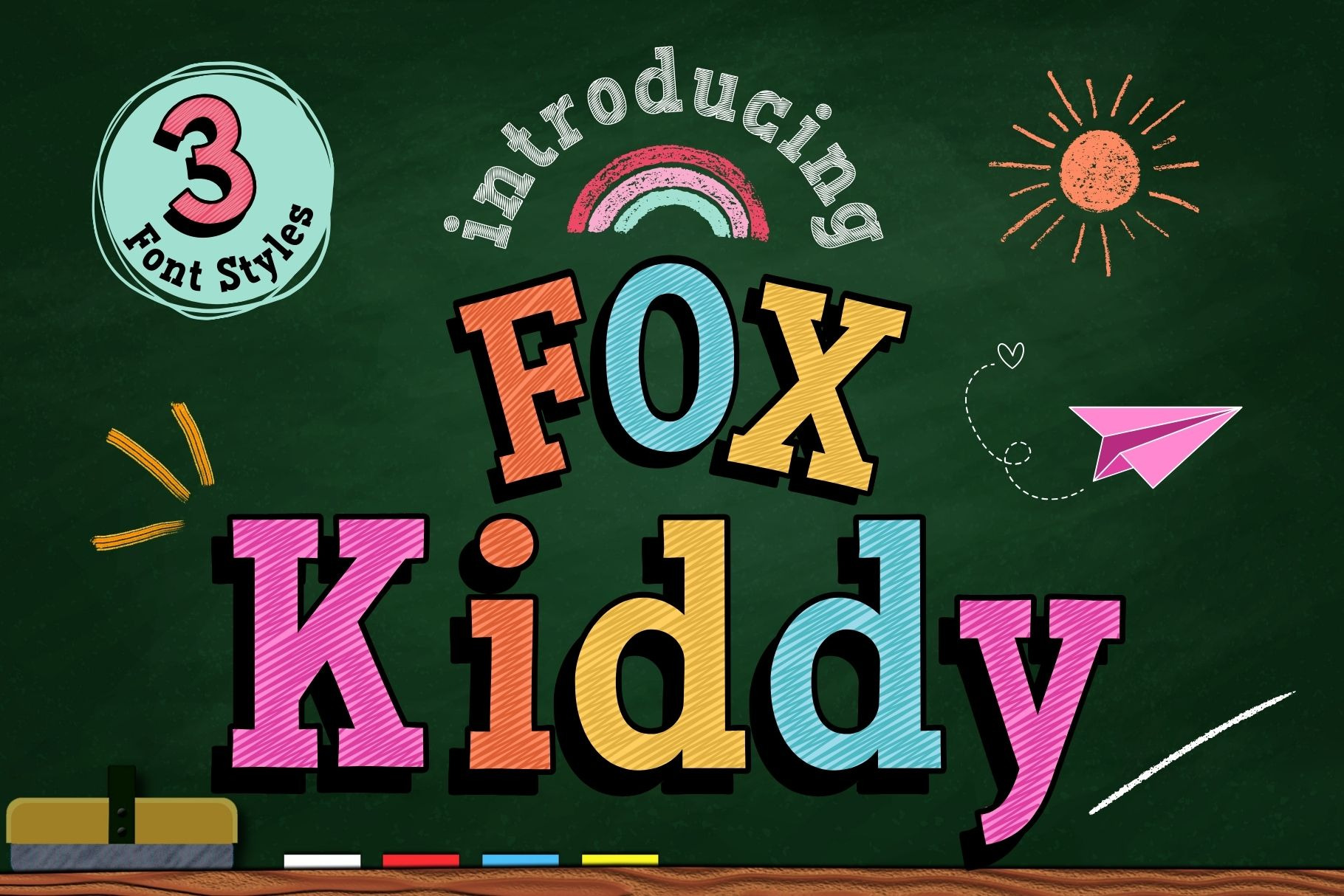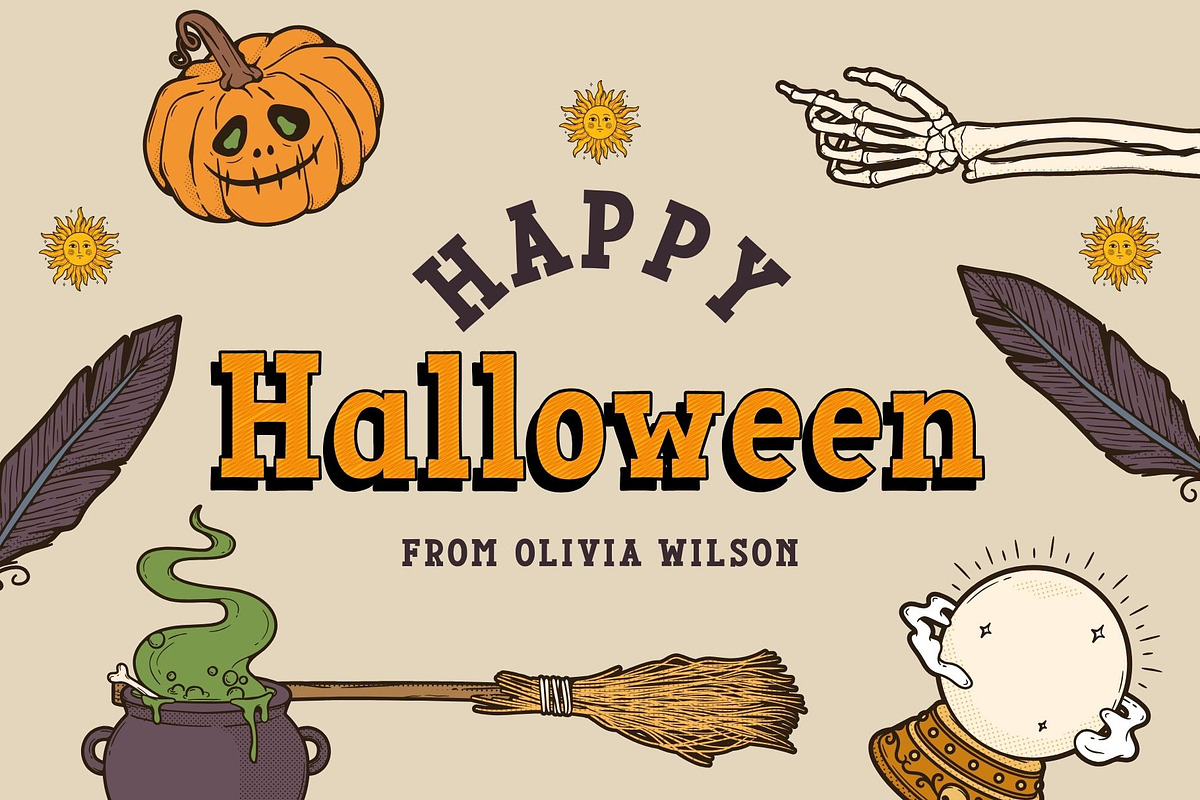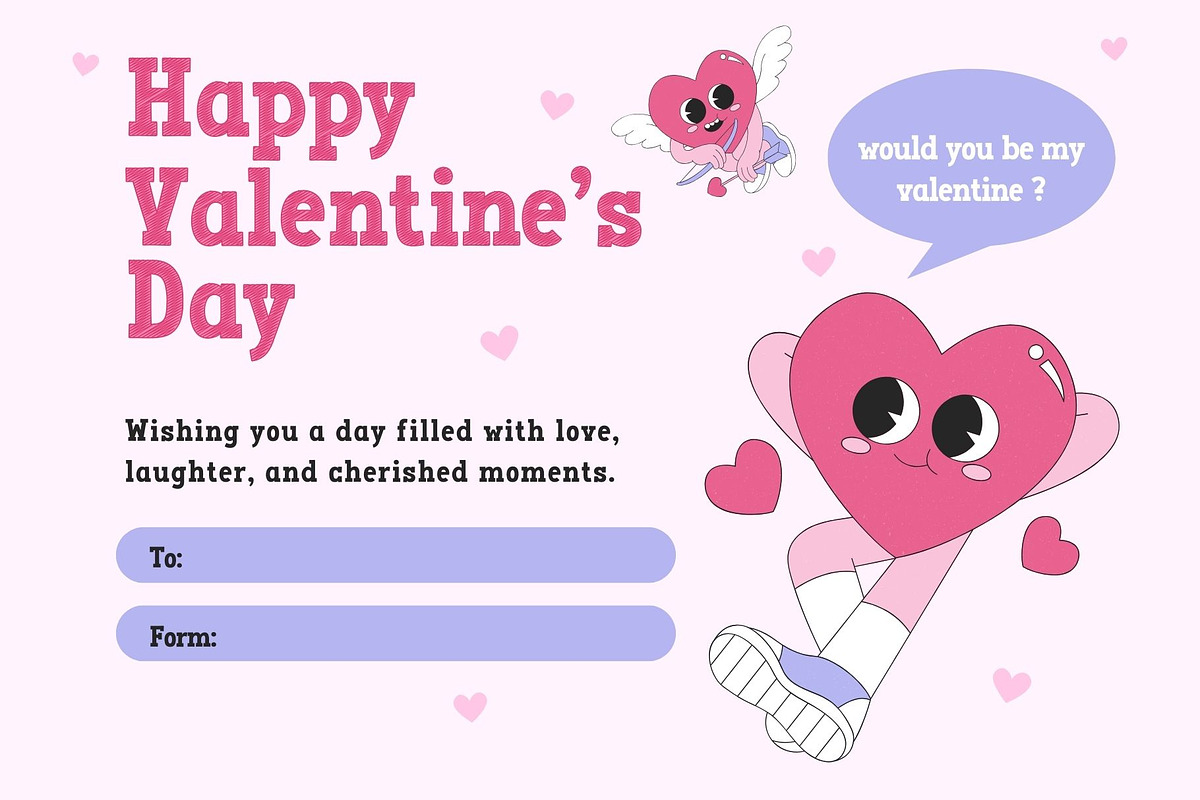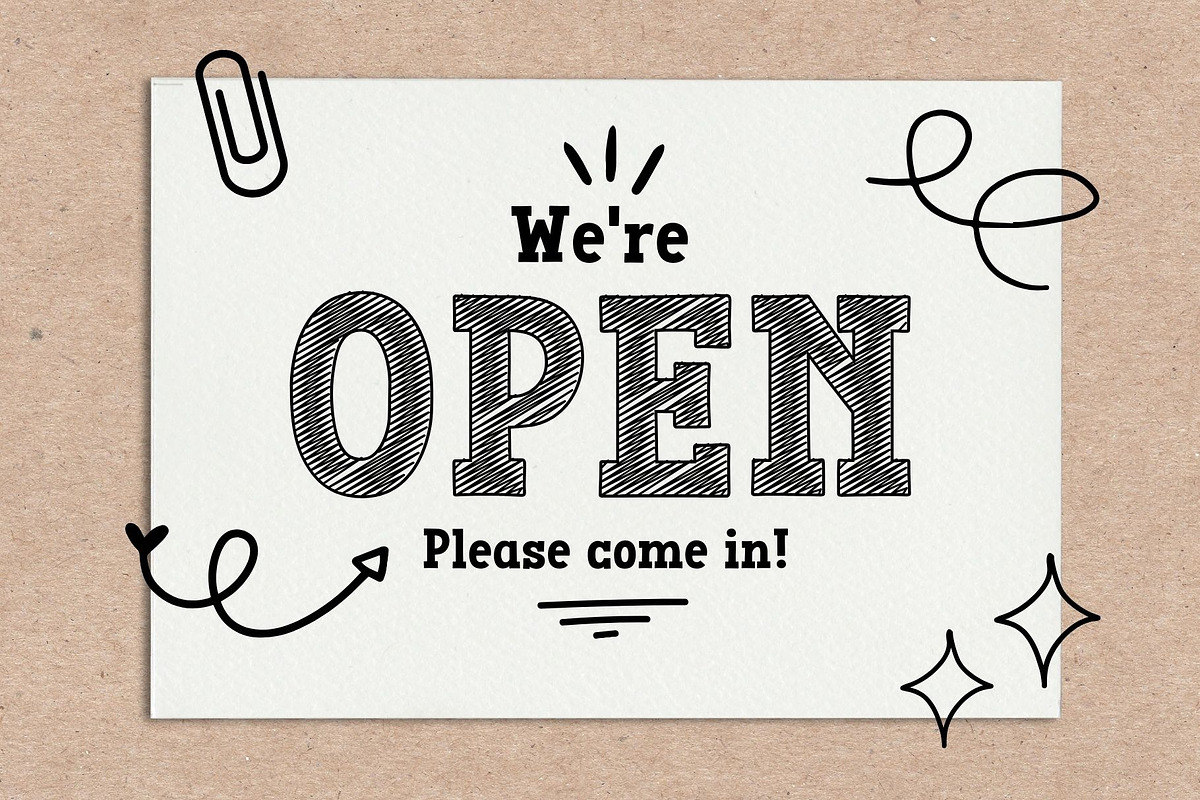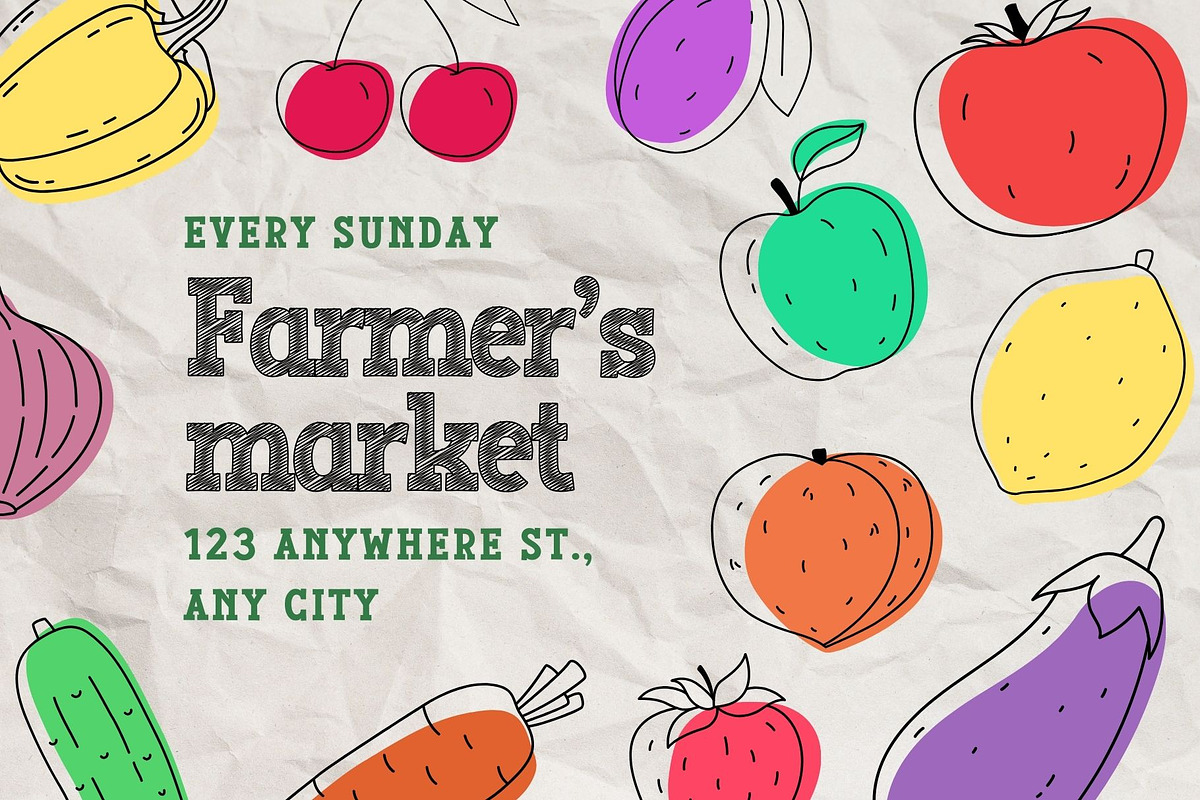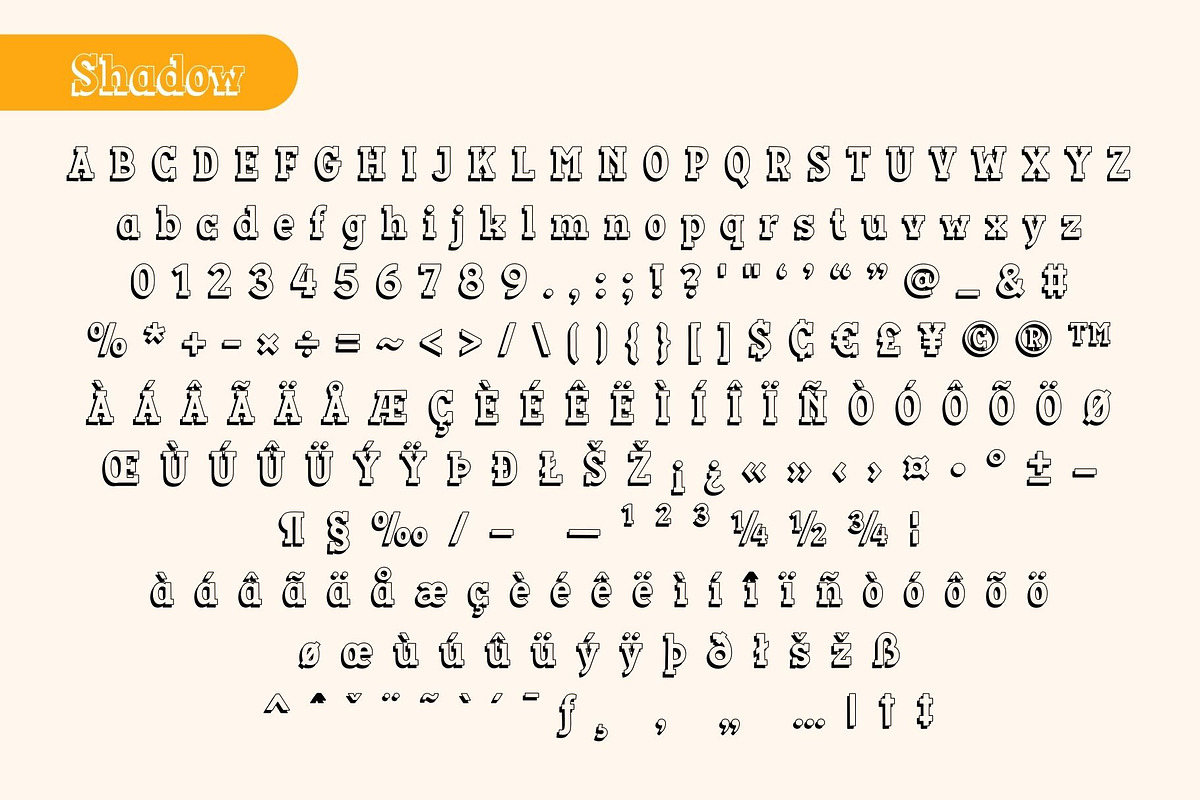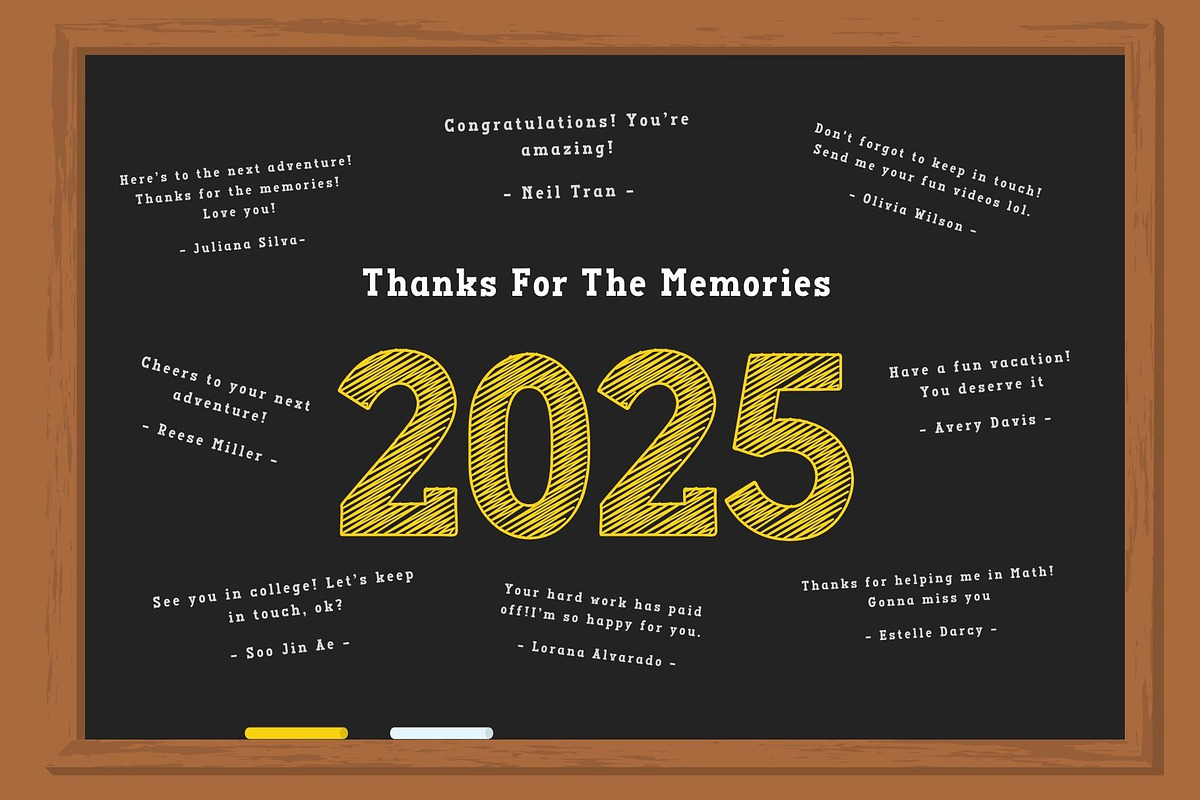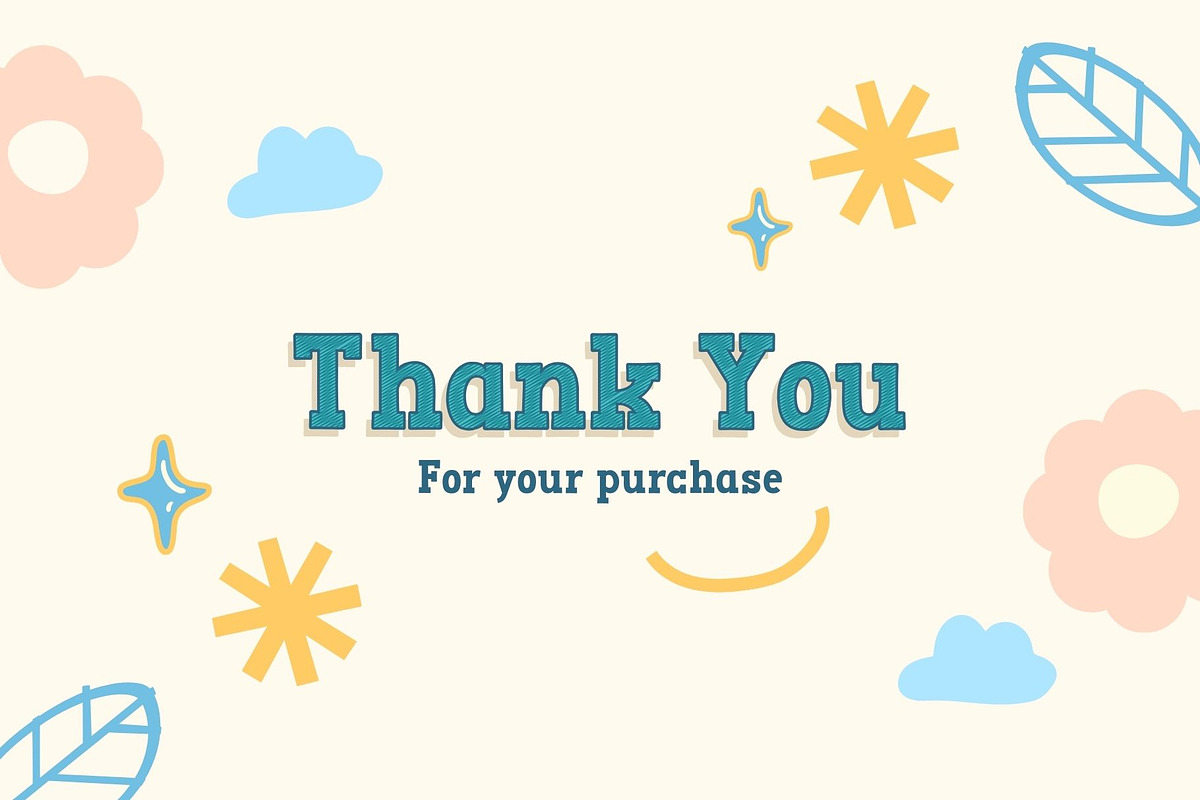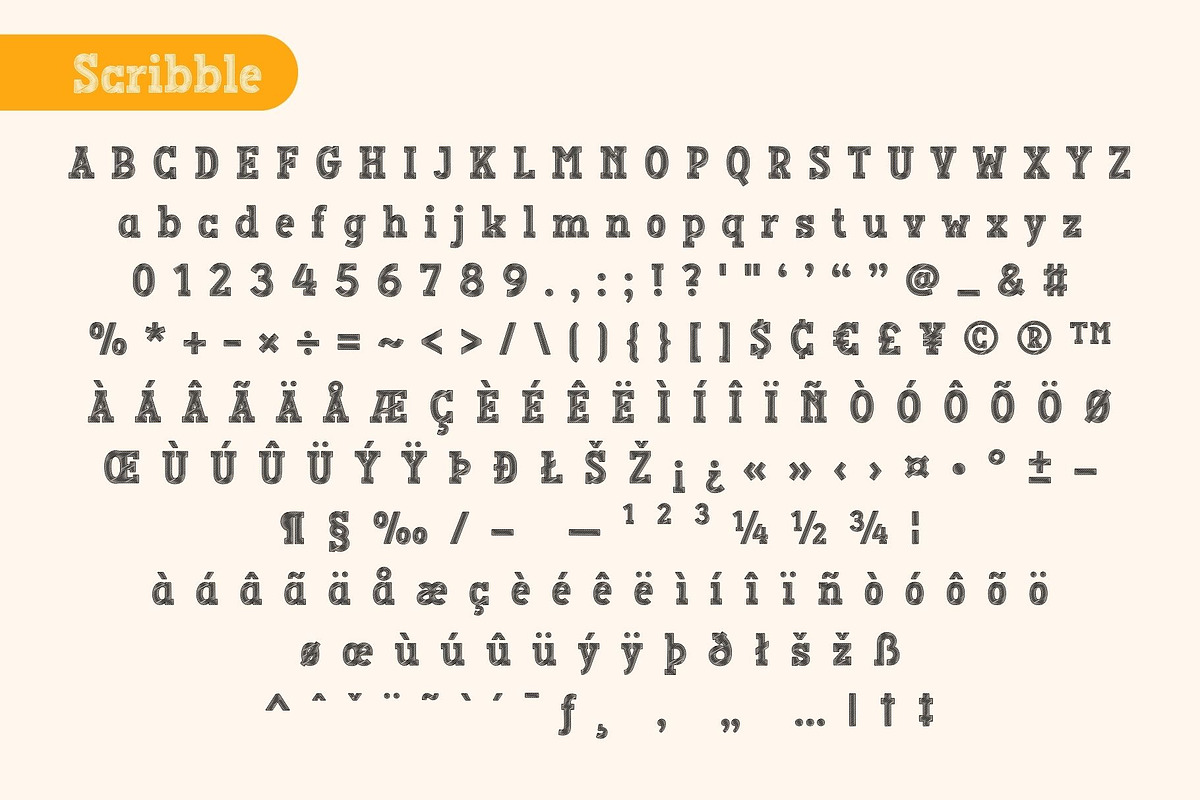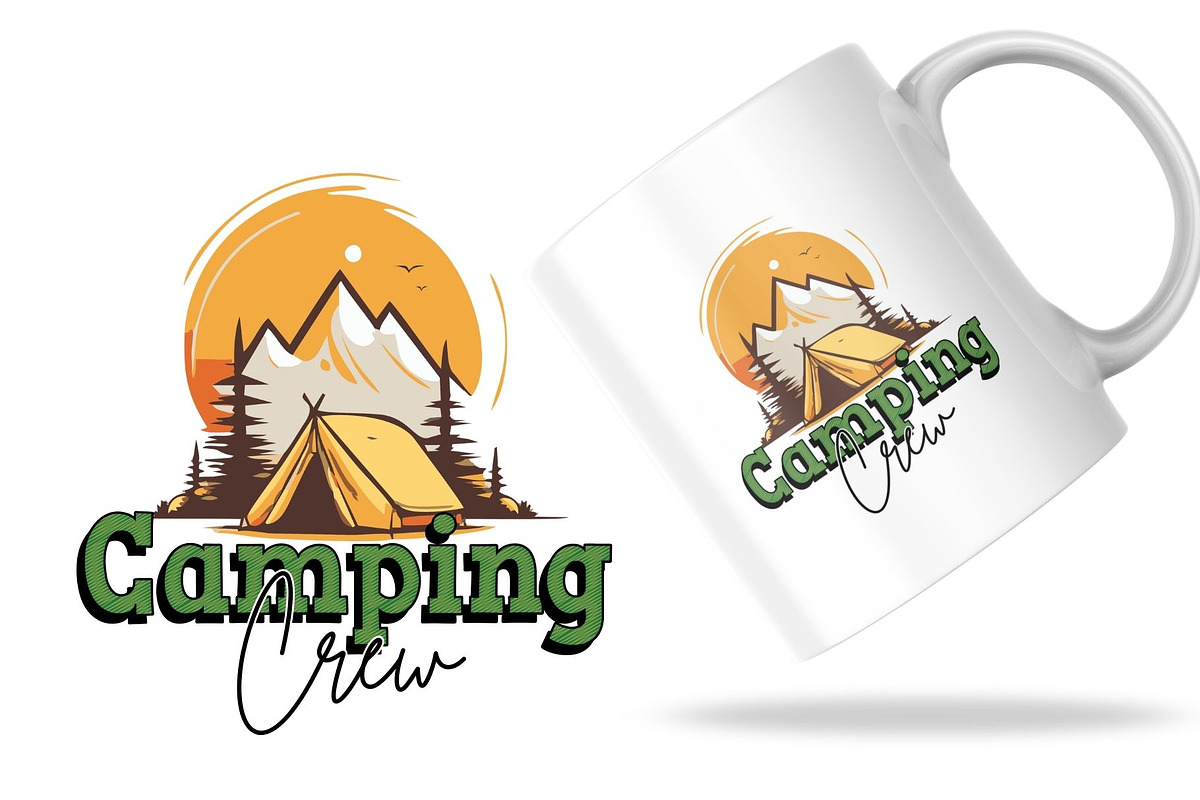
Fox Kiddy : 3 Font Styles
Bring joy and creativity to your projects with Fox Kiddy, a playful and bold display font designed especially for kids-themed designs. With its chunky letters, hand-drawn charm, and fun details, Fox Kiddy makes every project feel cheerful and full of energy.
This font family comes with 3 unique styles that you can mix and match:
⟡ Regular – clean and bold, perfect for clear and playful titles.
⟡ Scribble – sketchy and fun, adding a hand-drawn, doodle-like effect.
⟡ Shadow – bold with extra depth, making your words pop off the page.
Whether you’re designing for children’s books, posters, invitations, classroom materials, packaging, or playful branding, Fox Kiddy will bring smiles and creativity to your work.
✨ Perfect for: kids projects, school themes, crafts, stickers, games, storybooks, and fun product packaging.